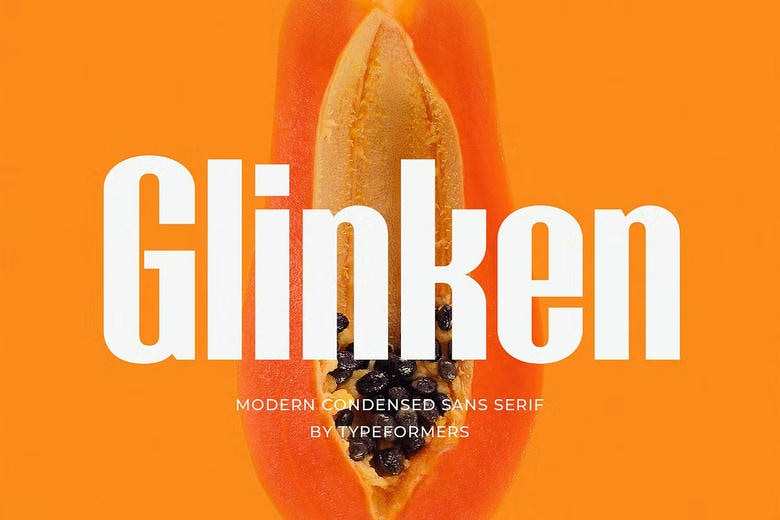
Glinken Font
Glinken – Modern Condensed Sans Serif. Glinken is a modern and simple font, best used as a display for headings, logos, branding, magazines, product packaging and invitations.
Glinken Sans Serif Font